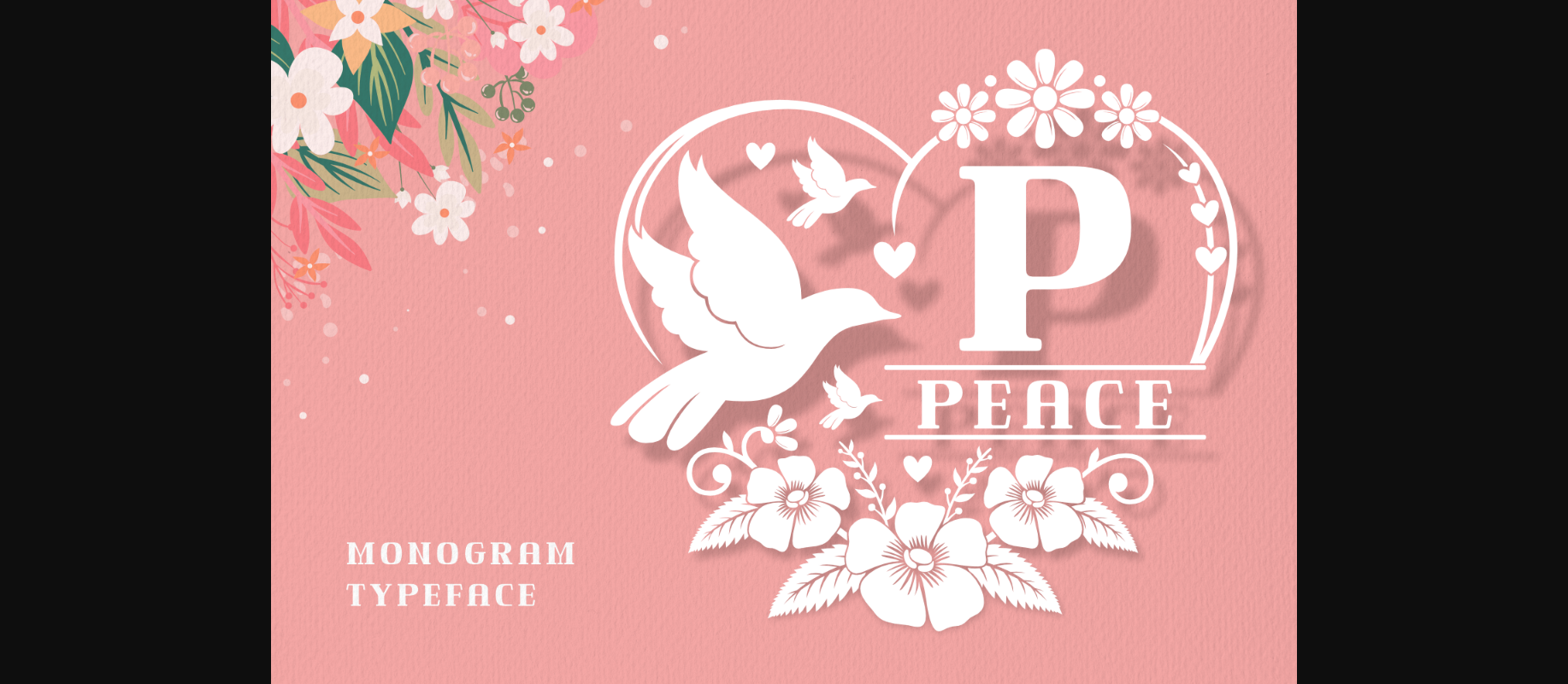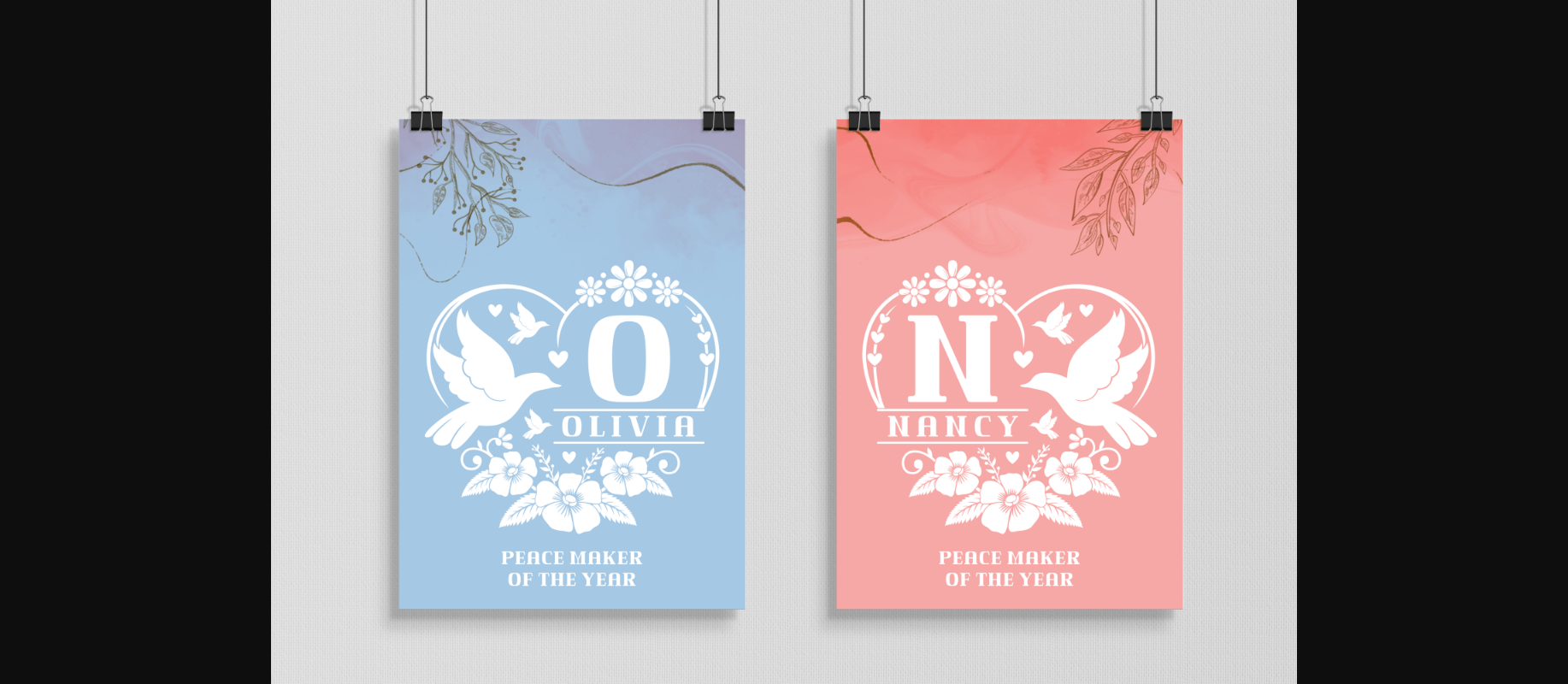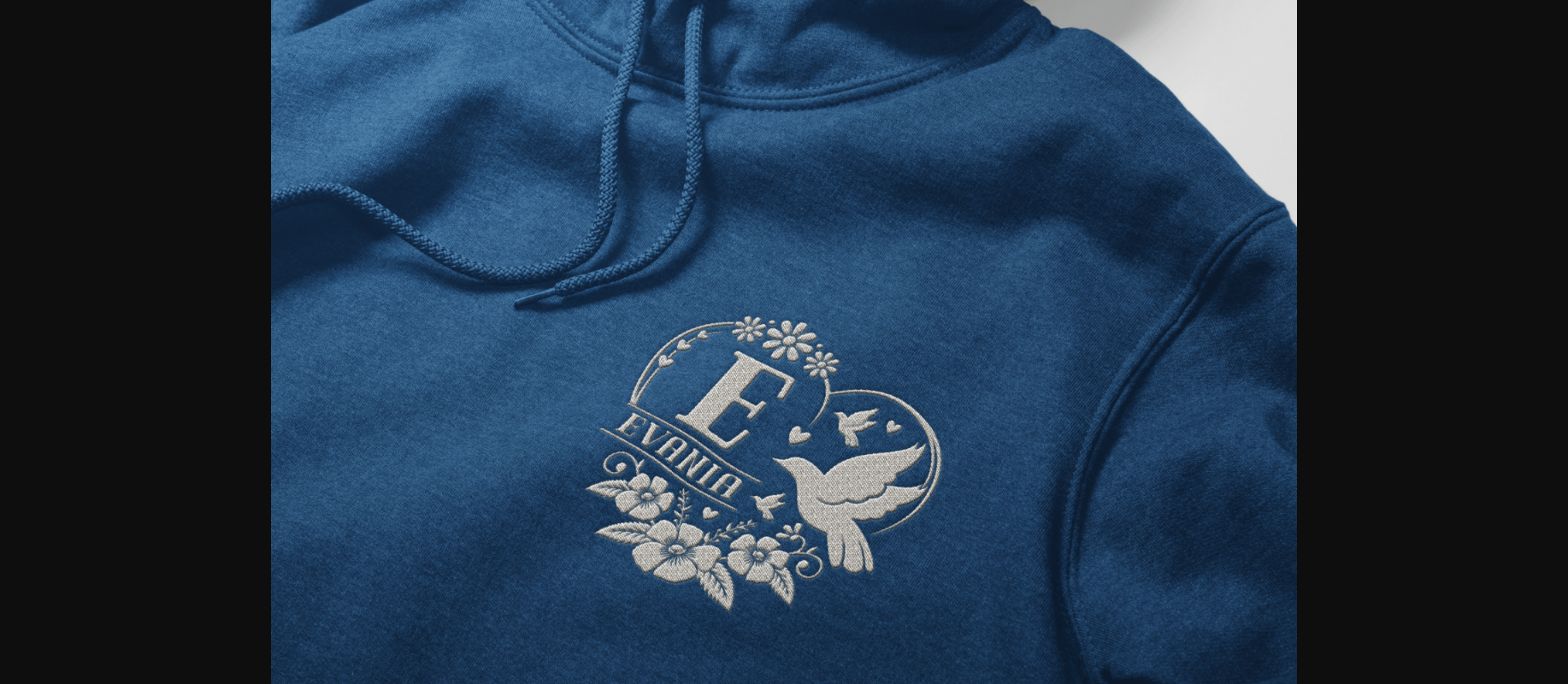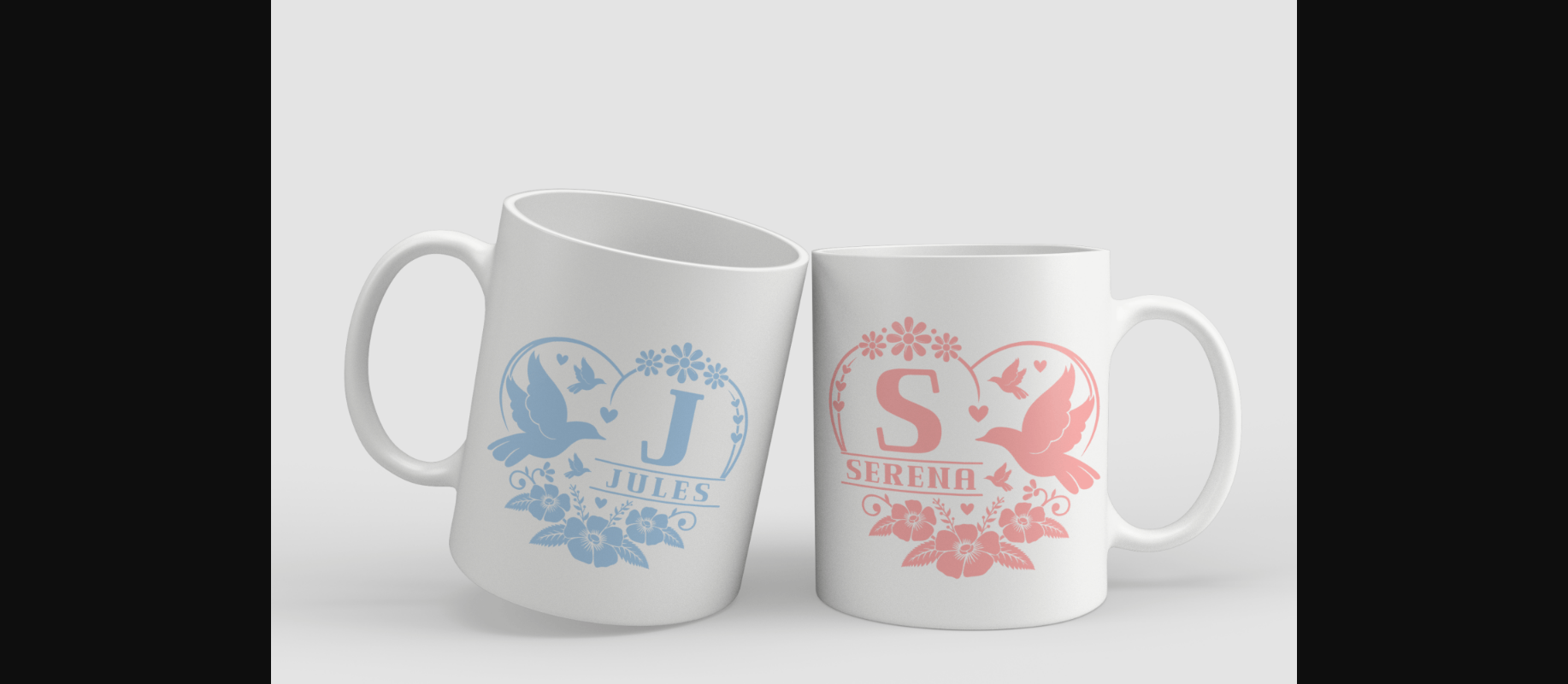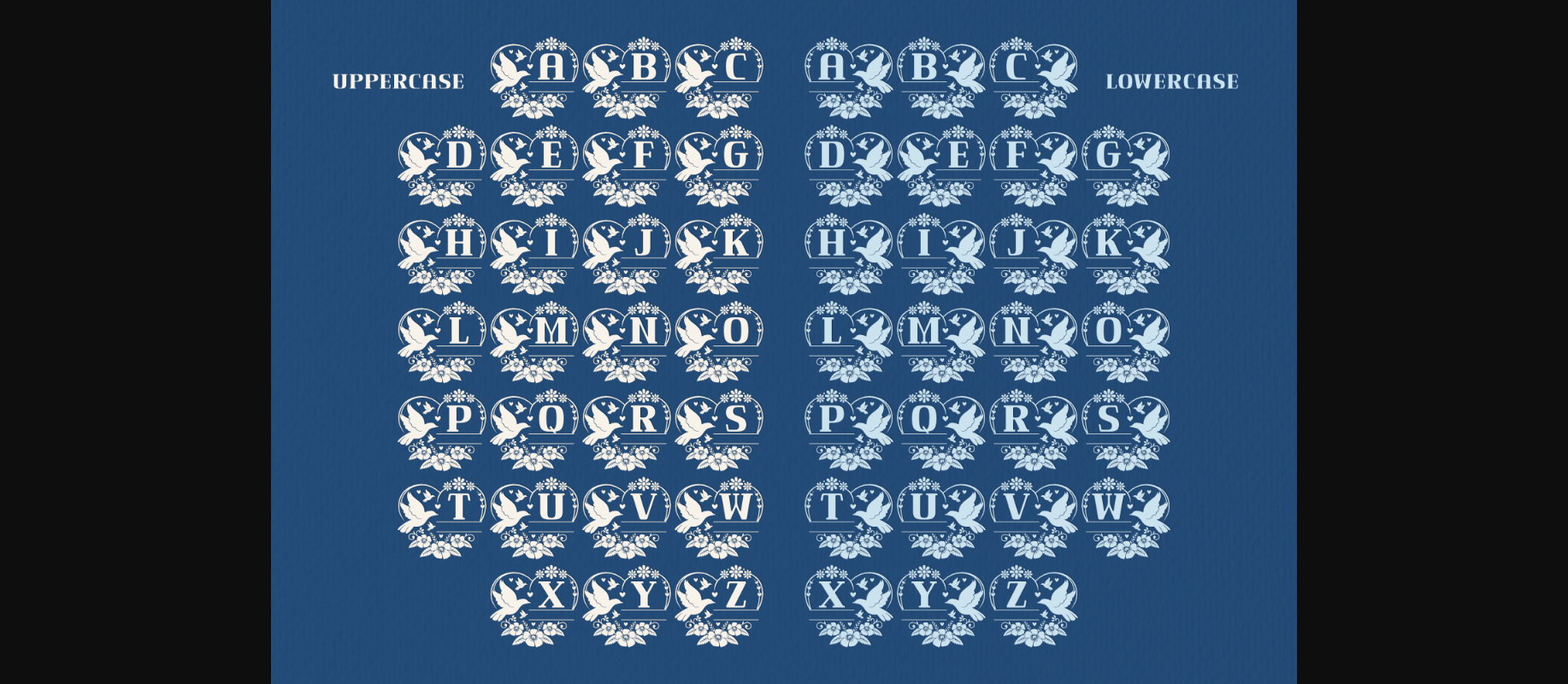
Peace Monogram Font
About Peace Monogram Font
Peace Monogram is a remarkably delicate and stylish decorative font. This font will be an incredible asset no matter the topic, and it will elevate any creation!